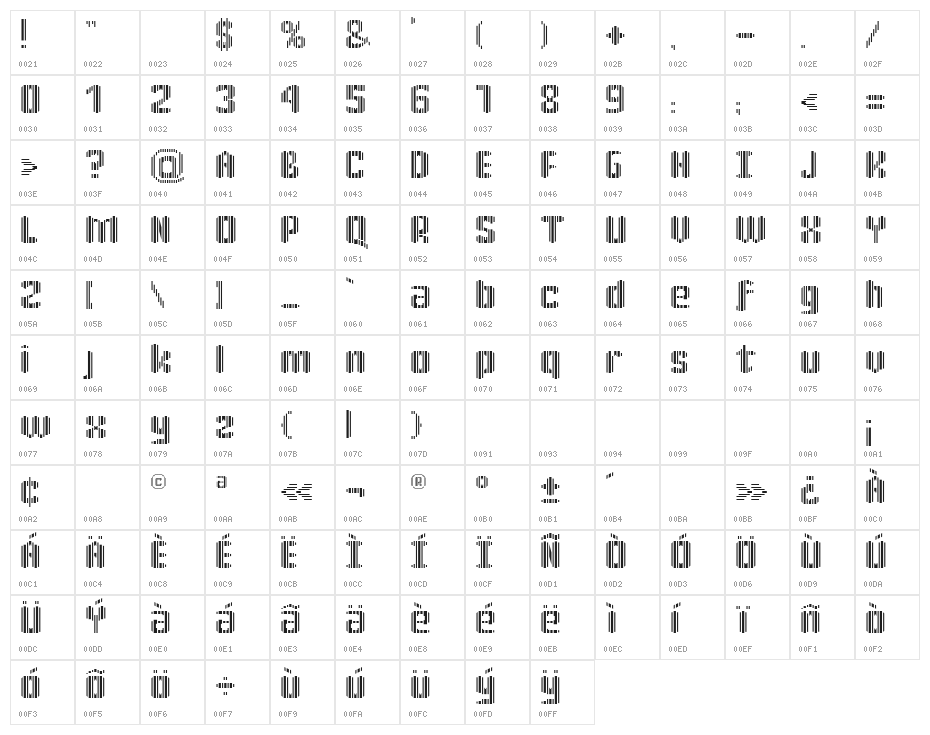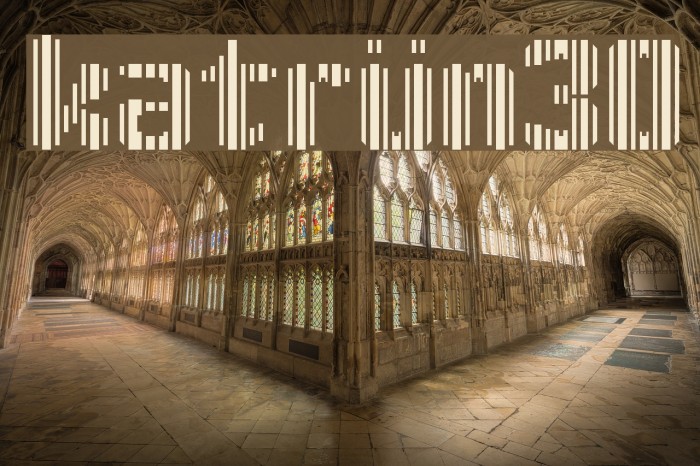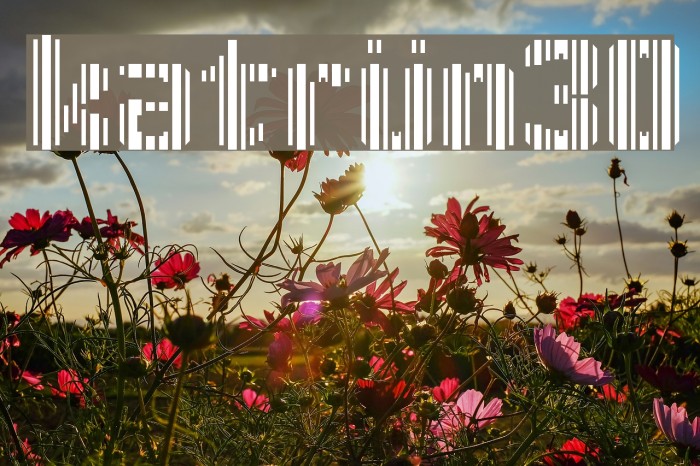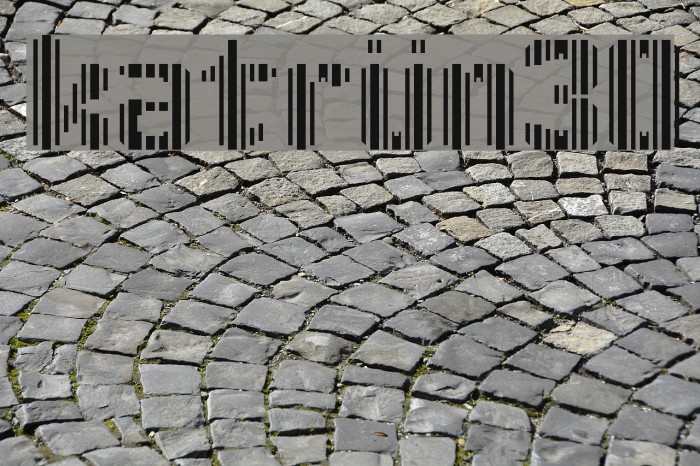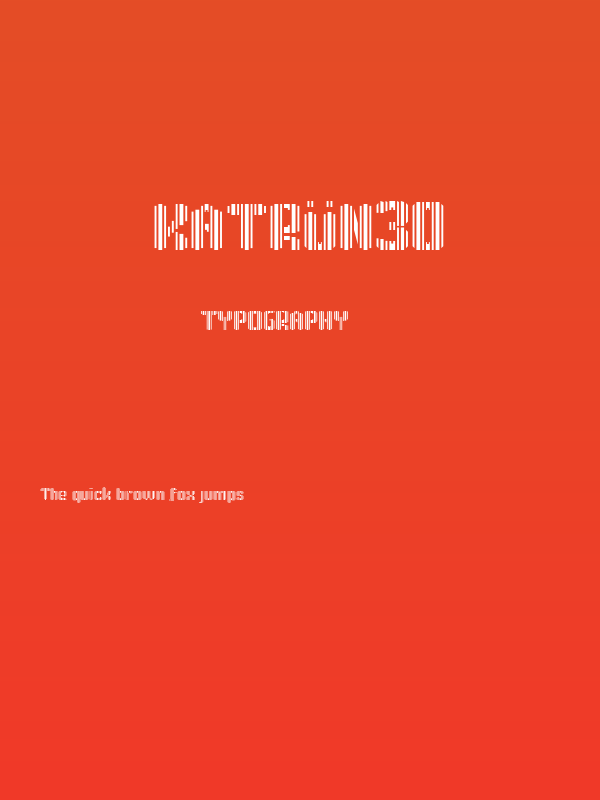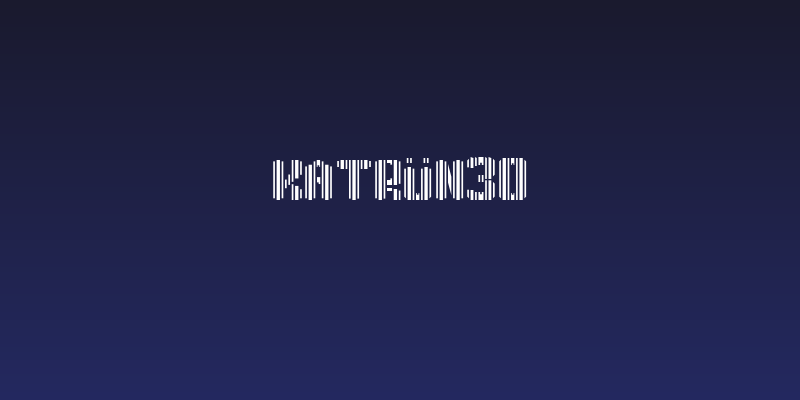
katrün30 Font
katrün30 Description
This font features a unique, modern design characterized by vertical stripes that create a barcode-like appearance. Each character is composed of multiple parallel lines, giving it a futuristic and digital aesthetic. The uppercase and lowercase letters maintain a consistent style, with the vertical lines varying slightly in thickness to form recognizable letter shapes. Numbers and special characters follow the same pattern, ensuring uniformity across the font. The overall look is striking and eye-catching, making it suitable for projects that require a bold and innovative typeface.
| Proposed Projects | Ideal for tech-related branding, futuristic designs, digital art, and innovative advertising campaigns. |